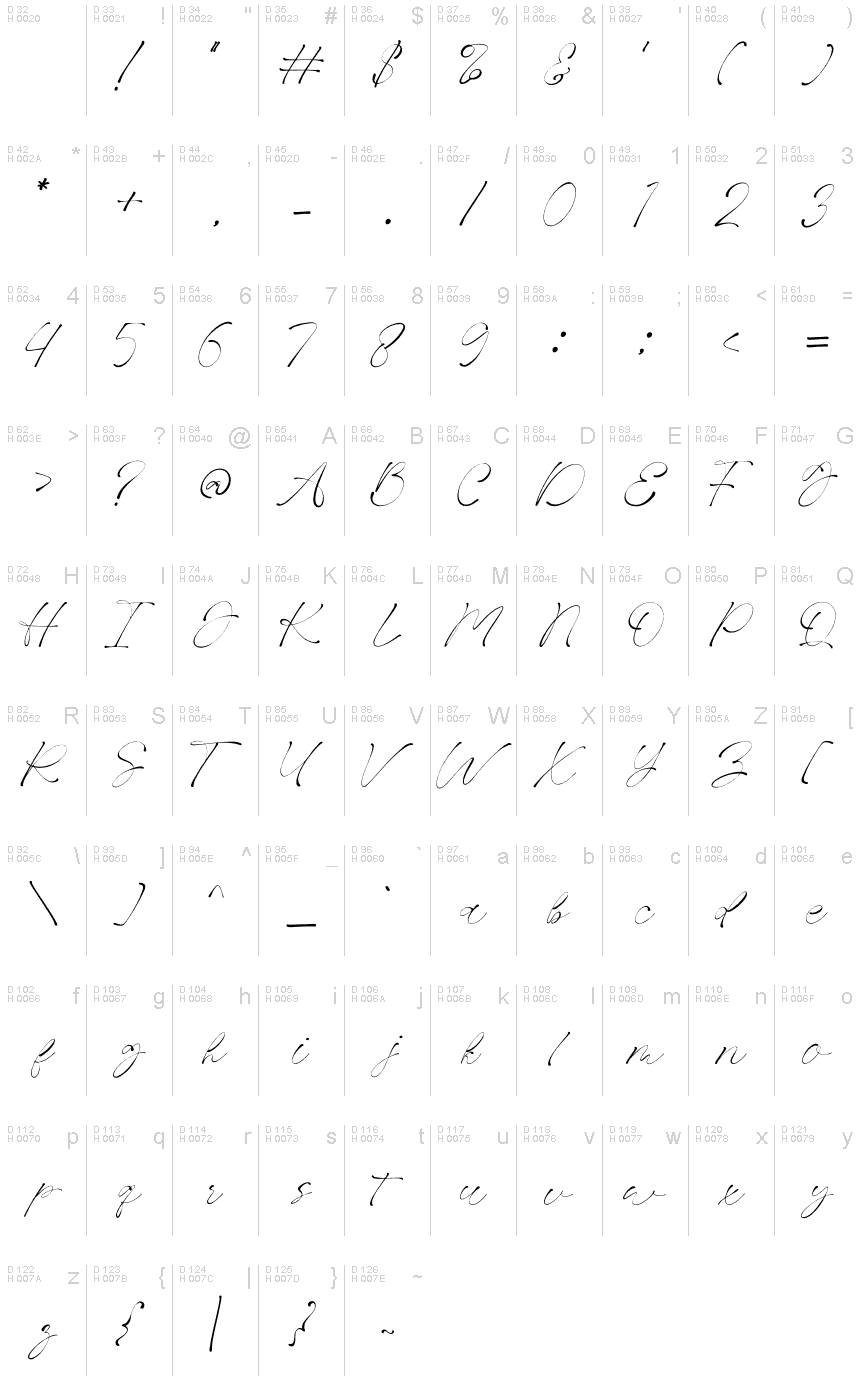
Aerpthine Demo
Aerpthine emerges as a captivating semi-light handwritten font designed by Enxyclo Studio, embodying a balance of elegance and casualness. Its fluid cursive strokes and slight slant evoke the charm of personal correspondence, while the semi-light weight lends it a delicate yet readable touch. The subtle variation in line thickness within each character contributes to its organic feel, making Aerpthine an exceptional choice for projects seeking to convey authenticity and warmth.
This font's aesthetic appeal lies in its ability to mimic the nuanced imperfections of actual handwriting while maintaining clarity and legibility. Perfect for invitations, branding, or editorial work where personality is key, Aerpthine offers designers a versatile tool that infuses text with individuality without compromising on sophistication. Whether it graces the pages of a boutique magazine or elevates the branding of an artisanal business, Aerpthine stands out with its artistic flair and accessible charm.